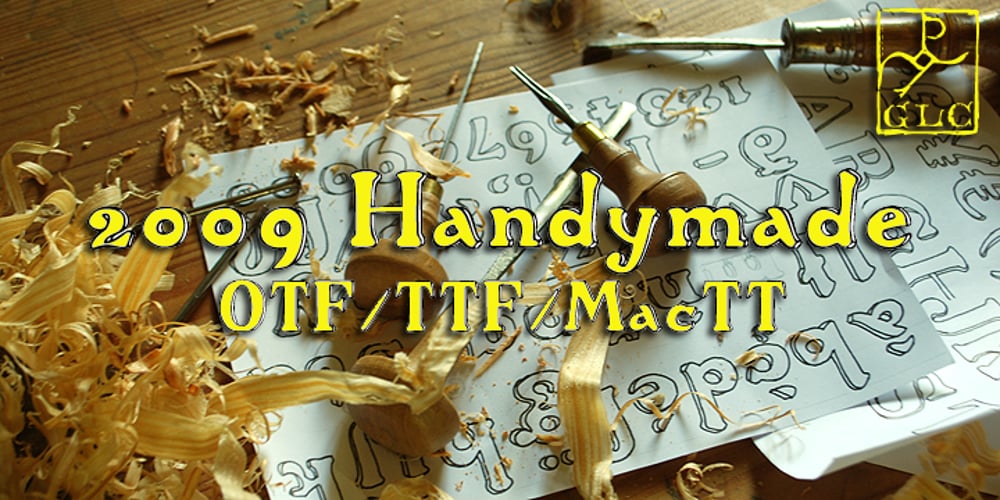
2009 Handymade Font Family was designed by published by GLC. 2009 Handymade contains 1 styles and family package options. This font is not a historical one. Although to make it was quite time-consuming (each glyph was hand-drawn separately, except for the ligatures), this cartoon or comics style font is just made for fun.